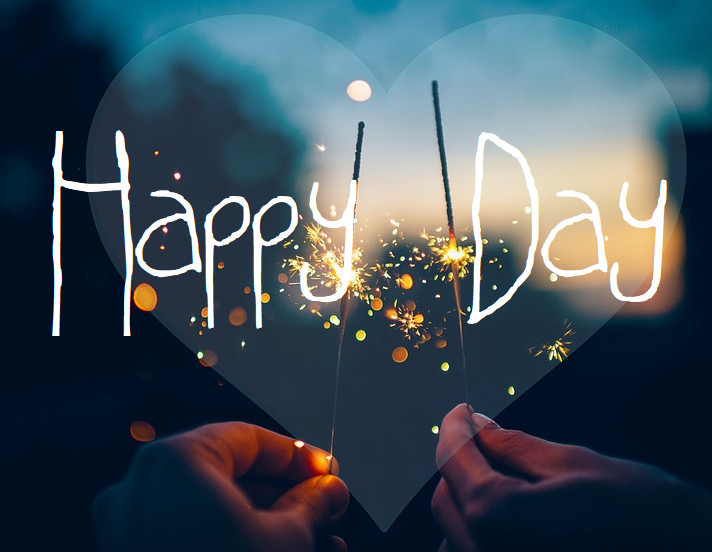
Happy Day Font
Add simplicity to your presentation with this clear, handwritten font.
| Designer Name: | TheCrownIsMine |
| Classification: | Handwritten Fonts |